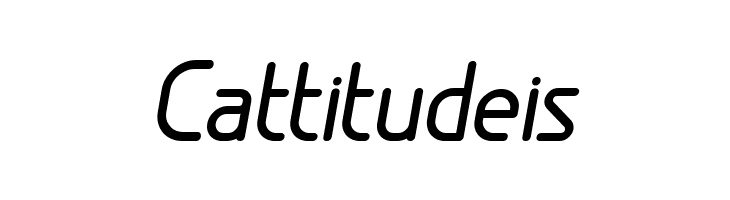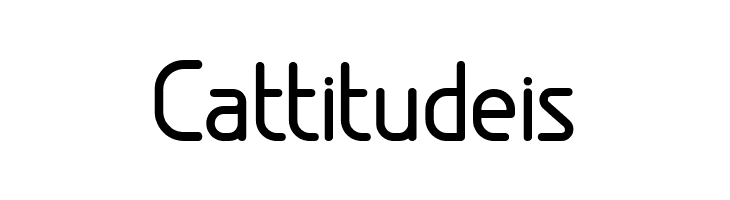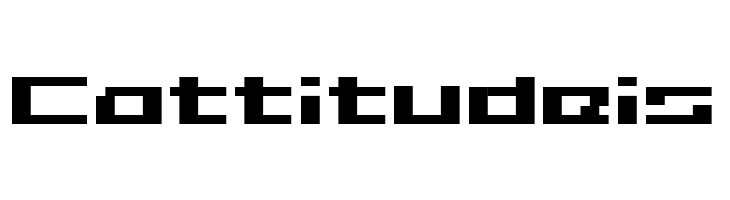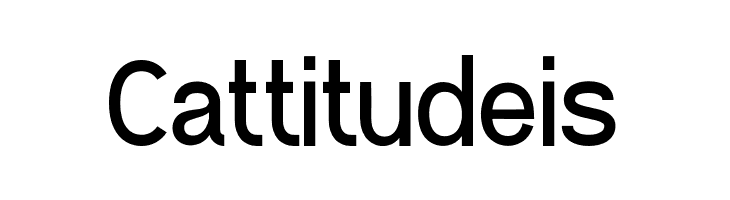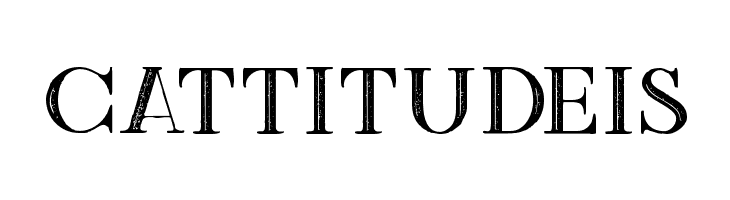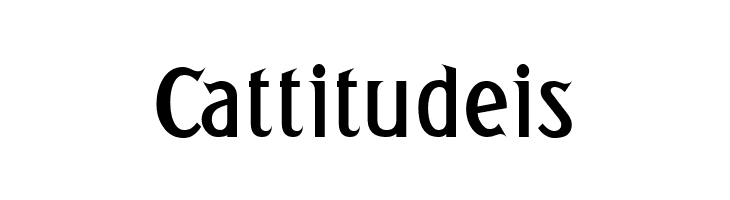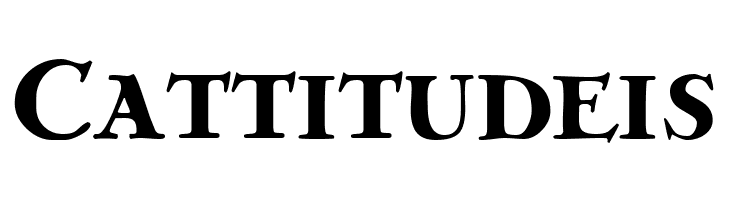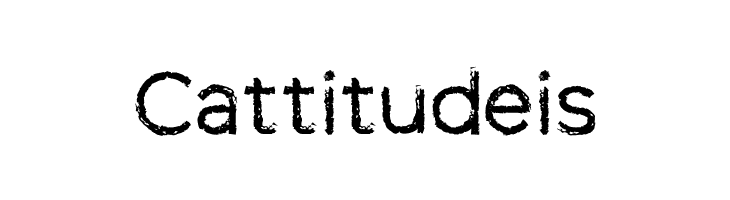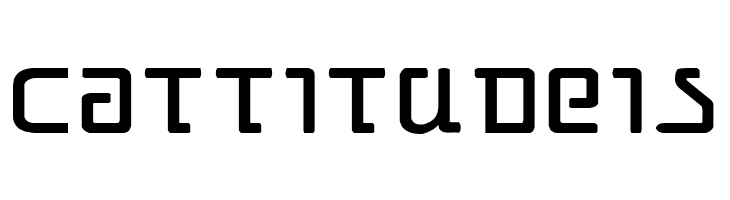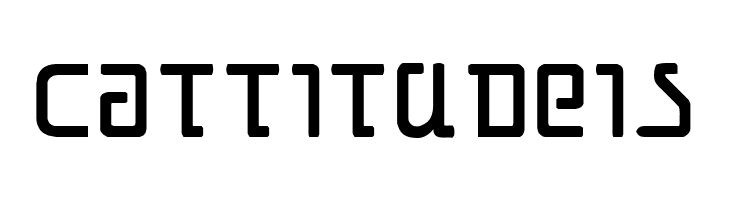
• GREAT ADVENTURE Bold
A bold, geometric font with a strong, adventurous style.
• GREAT ADVENTURE Bold Italic
A bold, italic font with a modern and dynamic style.
• Great Day Bold Personal Use
A bold, dynamic script font with fluid, connected letterforms and elegant curves.
• Great Leader Bold
A bold, rounded font with a modern and playful style.
• Great Leader Bold Italic
A bold, italic typeface with rounded edges and a dynamic, modern style.
• Greback Grotesque PERSONAL Bold
A bold, modern sans-serif font with clean lines and uniform spacing.
A bold, italicized font with a modern and clean design.
• Green Avocado Bold
A bold, playful, and decorative font with interconnected, rounded characters.
• Green Avocado Bold Italic
A bold, italic, and decorative font with playful curves and loops.
• Green Light Bold Inline Grunge
A bold, decorative font with grunge and inline detailing.
• Green Light Bold Inline Grunge
A bold, inline grunge font with decorative flourishes and a vintage, textured appearance.
• Green Martian Bold
A futuristic, geometric font with bold, angular letterforms.
• Green Martian Bold Italic
A bold, italicized futuristic font with sharp angles and geometric shapes.
• Green Martian Distressed Bold
A bold, distressed font with a futuristic and rugged appearance.
A bold, italicized, and distressed font with a futuristic and rugged appearance.
• Greepes Bold
A bold, textured font with a distressed, grunge-like style.
• Greetings Bold
A bold, dynamic serif font with sharp, angular serifs and a cohesive appearance.
• Greetings Bold
• GrekoDeco Bold
A bold serif font with high contrast and elegant serifs.
• GRENDEL BOLD
A bold serif font with strong strokes and elegant serifs, perfect for impactful designs.
• Grenze Bold
A bold, high-contrast serif font with a modern yet classic appeal.
• Grenze Bold Italic
Bold, italic serif font with a modern yet classic style.
• Grettana Bold